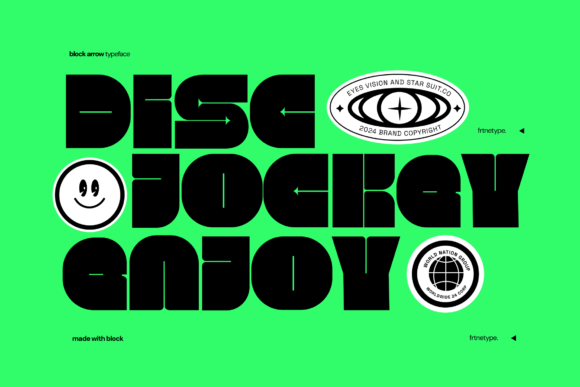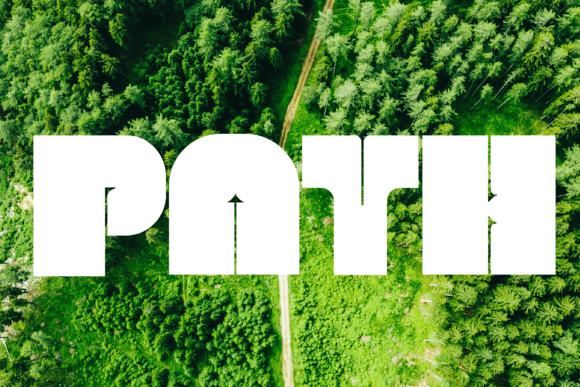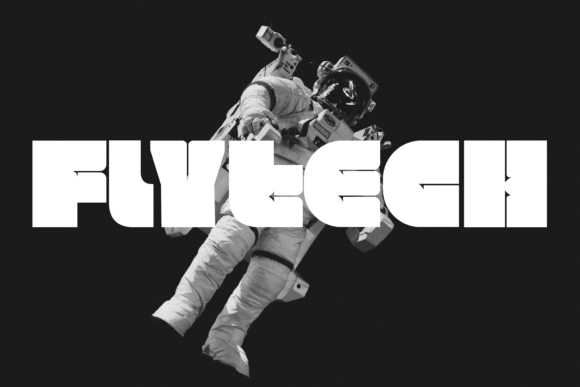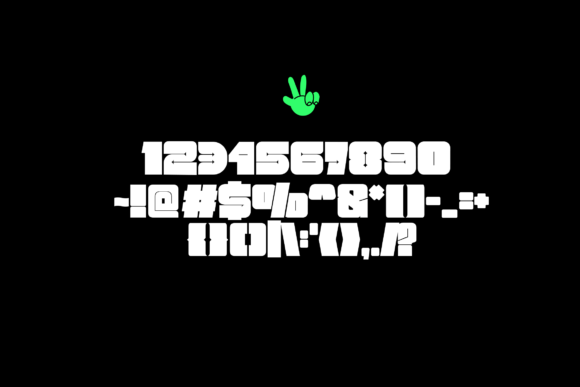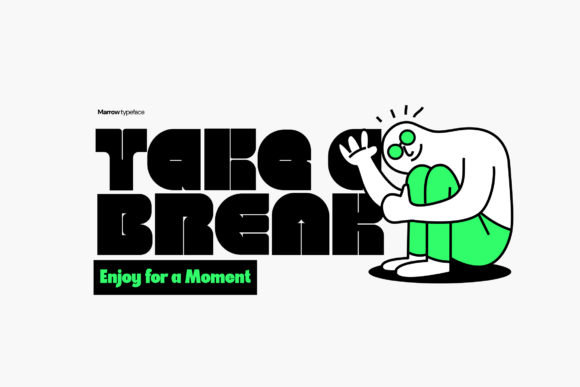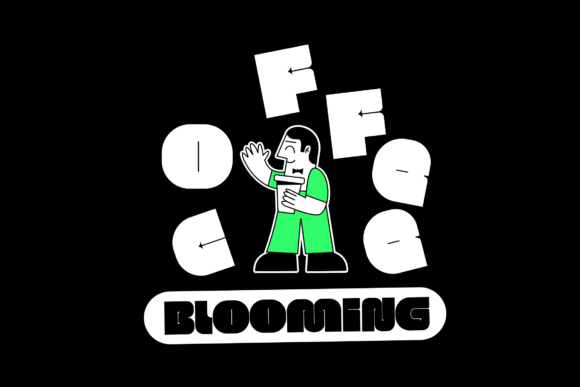
Introduction to Marow Block Font
Have you ever stumbled upon a design that makes you smile, and you’re not quite sure what makes it tick? Maybe it’s the playful combination of colors, or the quirky shapes that add a dash of whimsy. For designers, finding that perfect design element can be the key to unlocking a creative project’s full potential. That’s where the Marow Block Font comes in – a high-quality, block funny font that’s sure to bring a sense of fun and humor to any design.
Characterized by its bold, chunky letters and arrow shape, the Marow Block Font is a design resource that’s perfect for grabbing attention and adding a touch of personality to any text. Whether you’re working on a free download or a paid project, this font is sure to make your design stand out from the crowd.
Key Features of Marow Block Font
• High-quality, bold design perfect for creative projects and graphic design applications.
• Unique block font style with transparent background, ideal for use as a design resource.
• Designed with high resolution in mind, suitable for use in both print and digital applications.
• Perfect for use in logos, headings, and titles, adding a touch of modernity to any creative project.
Honest Review: Marow Block Font
As a designer, I’ve had the pleasure of working with various fonts, and I must say, the Marow Block Font has caught my attention. This free download is a game-changer for any creative project that requires a high-quality, modern aesthetic.
Here’s what I like about the Marow Block Font:
• ✨ Unique design: The Marow Block Font’s distinctive block letters and clean lines make it perfect for headings and titles.
• ✨ Versatility: This font can be used in a variety of design projects, from digital to print, and looks great on both light and dark backgrounds.
• ✨ Transparency: The transparent background allows for easy layering and manipulation, making it a great resource for designers.
• ⚠️ Limited font variations: While the Marow Block Font is a great addition to any design library, it would be nice to have more variations to choose from.
• ⚠️ Limited support for special characters: I’ve noticed that the font doesn’t support certain special characters, which can be a limitation for designers who need to work with non-English text.
Overall, I’m impressed with the Marow Block Font. Its unique design and versatility make it a valuable addition to any design library. While it may have some limitations, it’s definitely worth downloading for any creative project that requires a high-quality, modern aesthetic.
The Marow Block Font is a high-quality design resource ideal for various creative projects. It features a transparent background, making it versatile for different applications.
The Marow Block Font is commonly used in logo designs, social media graphics, and marketing materials due to its high-quality design and transparent background.